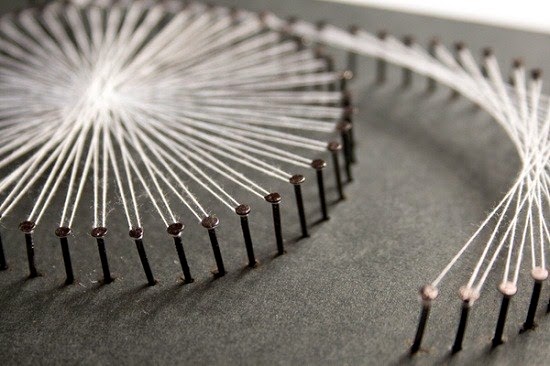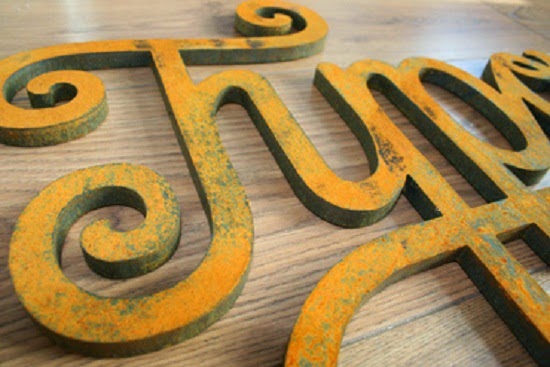
3D Typography Design Inspirations
Words tend to be highly effective plenty of, though the fine art associated with typography delivers that will into a totally new amount of creative imagination in addition to imagination. We've scoured the web for some amazing functions associated with three dimensional typography,
in addition to we’ve gathered eighty-three styles for you to take pleasure in. Produce your own . these types of motivate that you consider outside the field in addition to think of your individual three-dimensional typographic styles. From your fresh in addition to simple to abdominal muscles decorative in addition to complicated styles, we consider they are almost all fantastic functions within their unique proper rights. Tell us everything you consider, responses tend to be usually welcome!
3d Type Assortment.